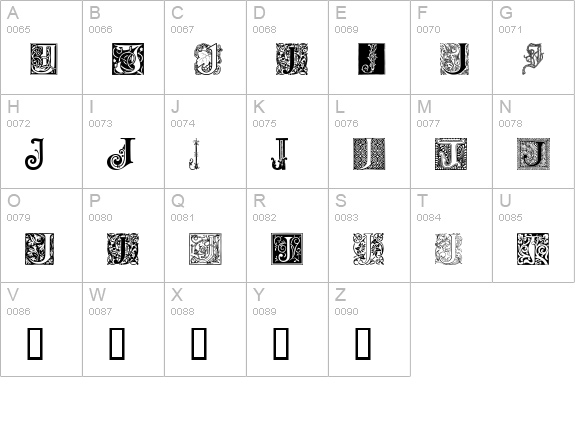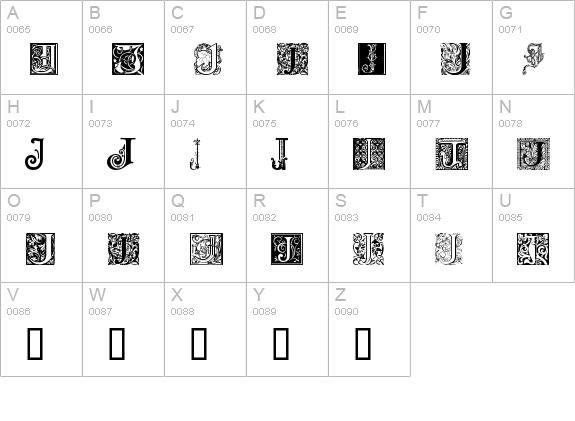
Ornamental Initials J Font Details
Ornamental Initials J font is a stunning display typeface that exudes elegance and sophistication. Featuring intricate details and ornate designs, this font is perfect for adding a touch of luxury to your projects. The ornamental initials are beautifully crafted, making them a focal point in any design. What makes Ornamental Initials J font even more appealing is that it is available for free download at FontsMarket.com. This means you can easily access this exquisite font and incorporate it into your creative endeavors without any cost. Whether you are working on invitations, posters, or branding materials, Ornamental Initials J font is sure to elevate your designs and leave a lasting impression. Download this font today and unleash your creativity with its timeless charm and ornate beauty.